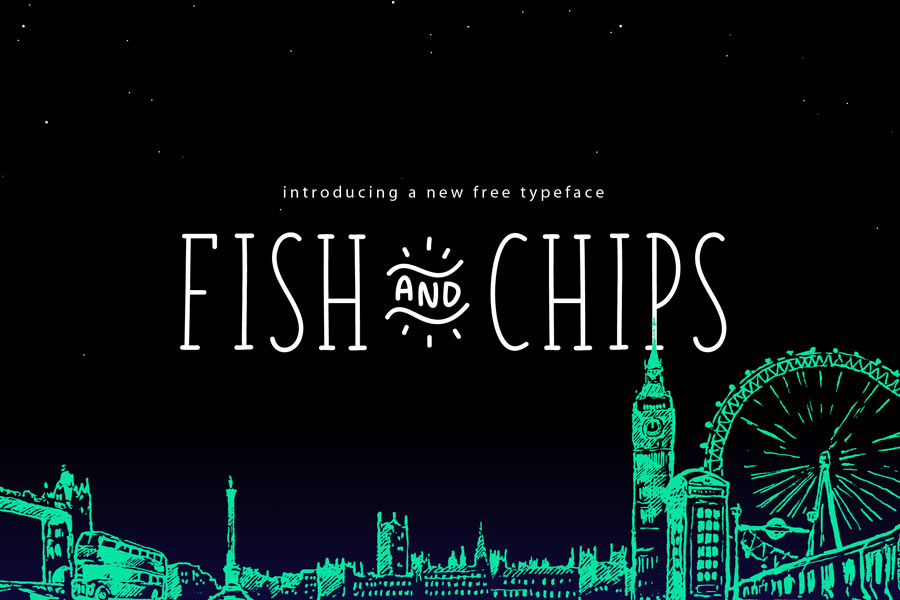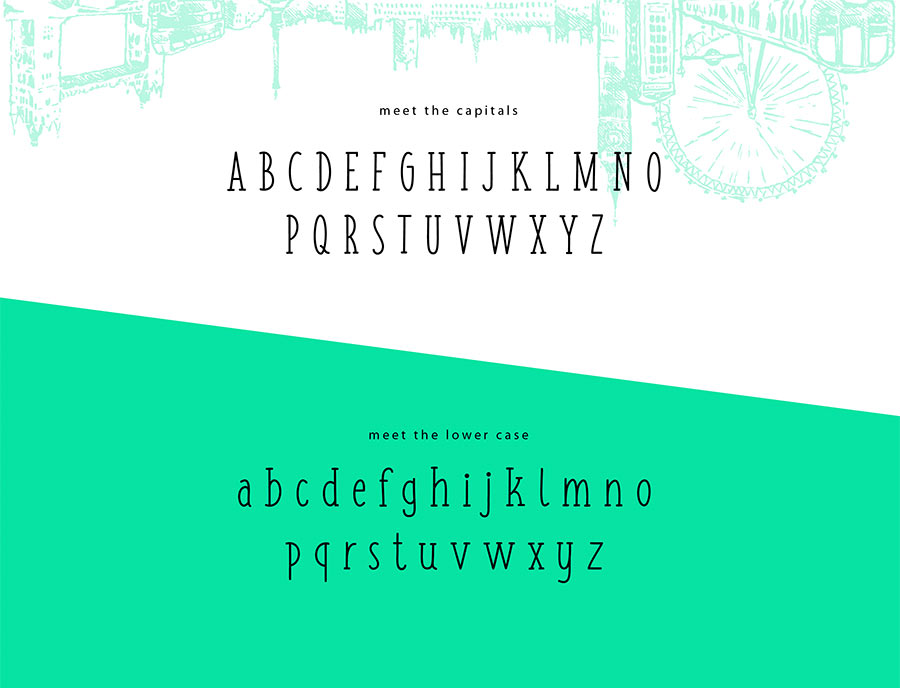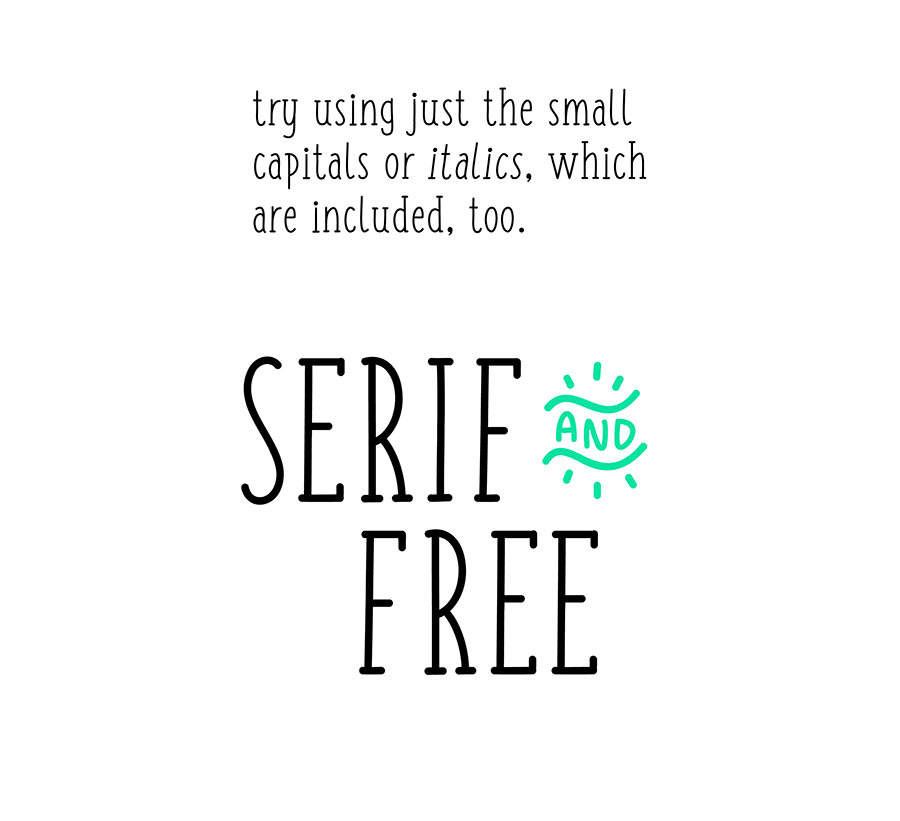
Fish and Chips is a handwriting flavoured slab serif font that is free to download. The full version comes with three weights and full range of glyphs, while the free demo Regular weight are downloadable with limited set of glyphs, and you can test drive it for free.
- Designer: Philip Trautmann
- Category: Slab Serif